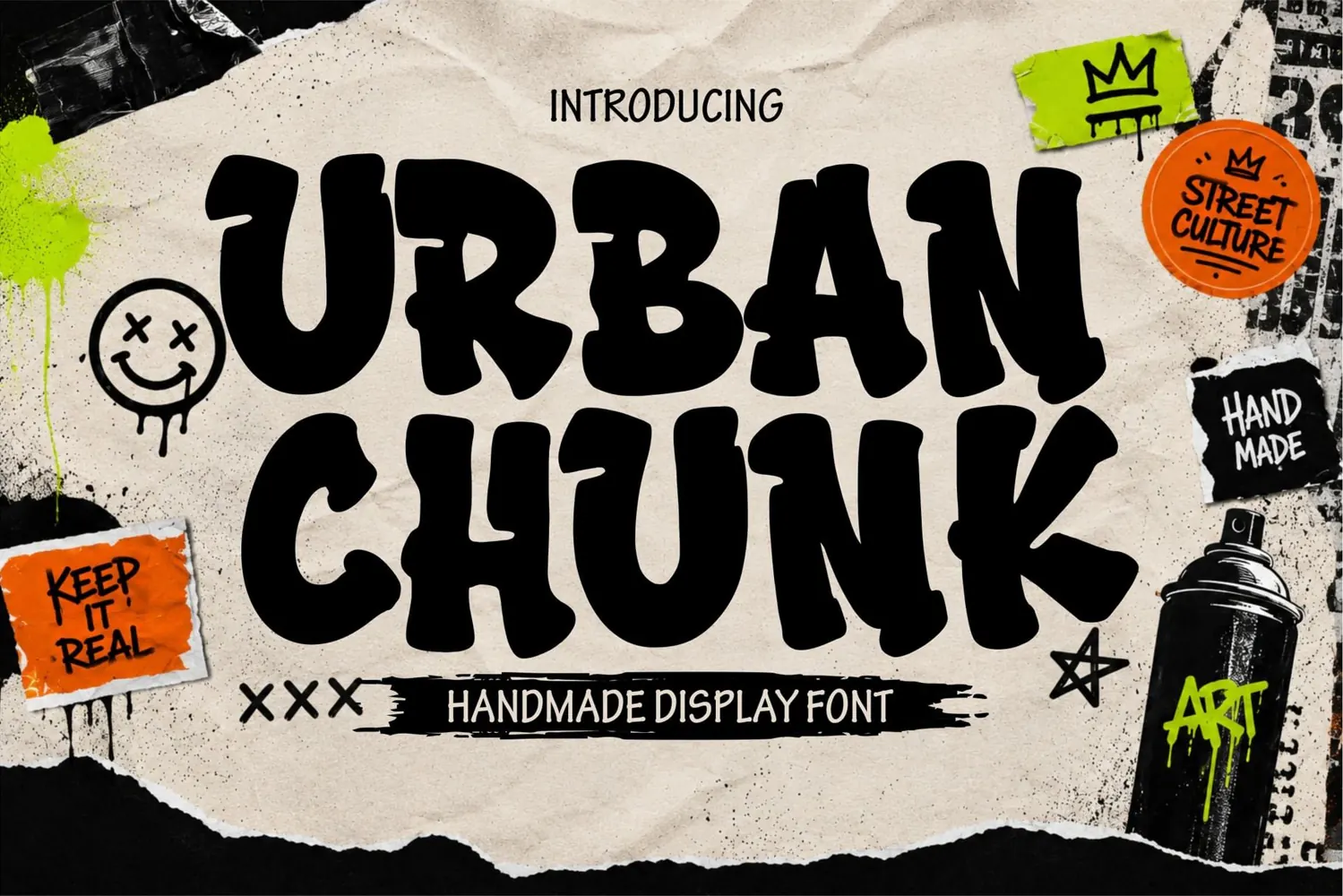
Introduce Urban Chunk, a bold, striking, and character-driven street graffiti font designed to give your designs an authentic urban vibe. This handmade display font is perfect for posters, album covers, apparel designs, streetwear, logos, merchandise, and street culture-themed creative projects.